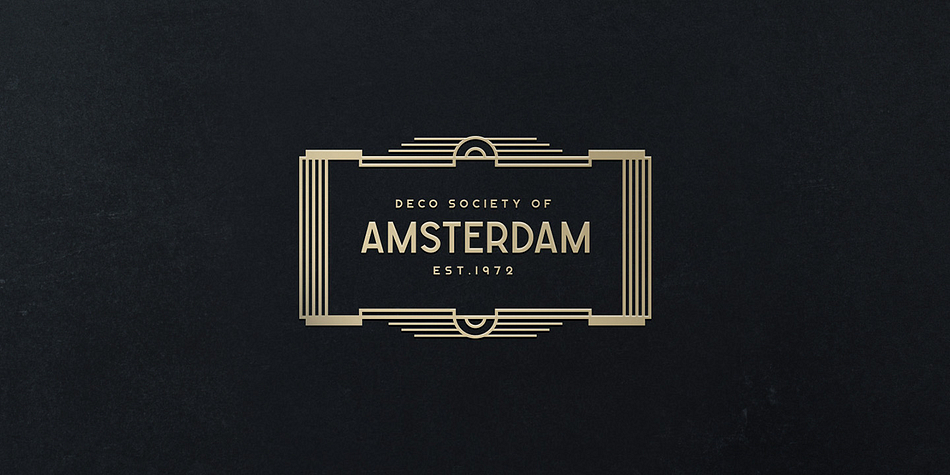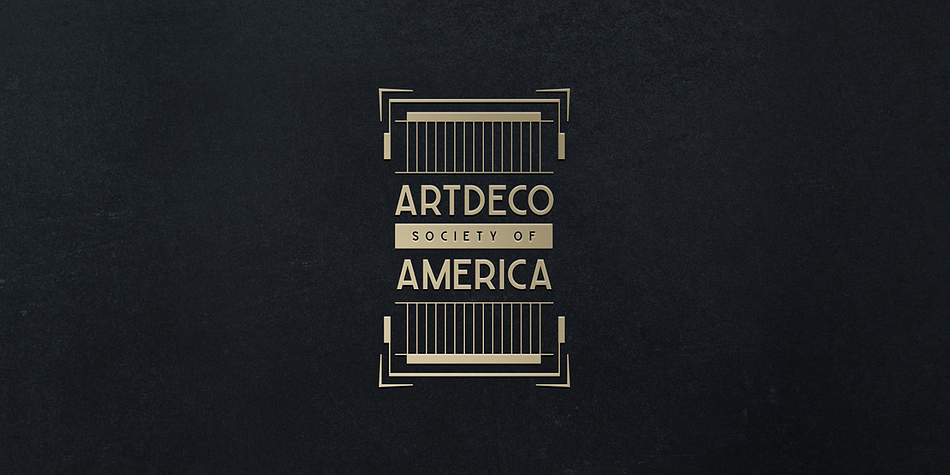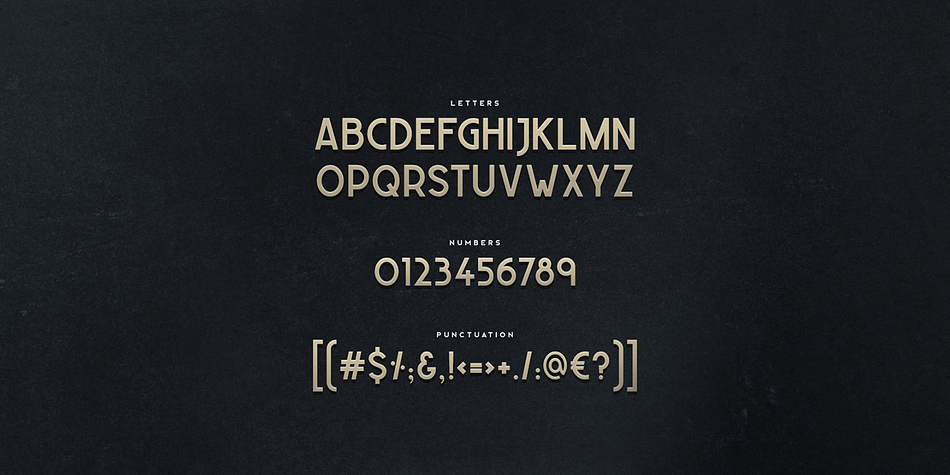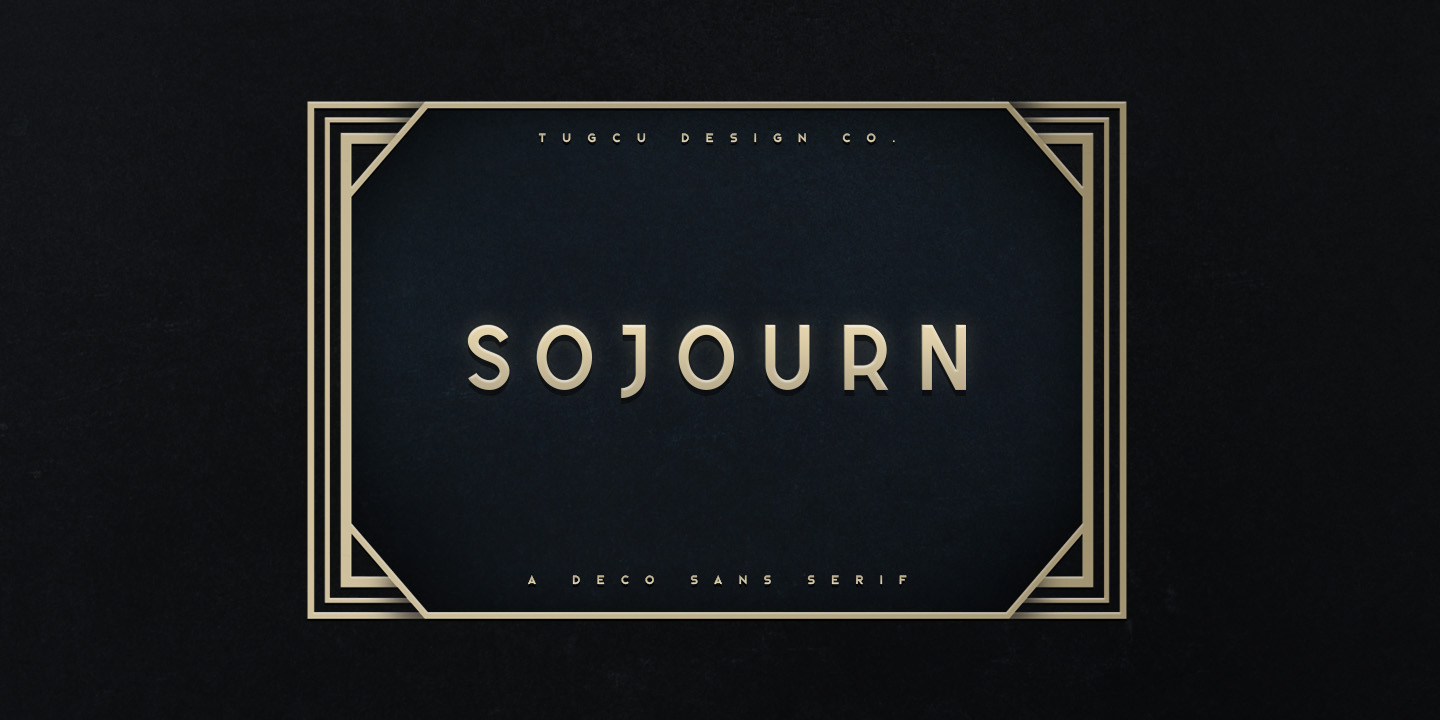
Sojourn is an art deco and display sans font published by Tugcu Design Co.
Sojourn is an art deco display font with uppercase multilingual letters, numbers and punctuation.